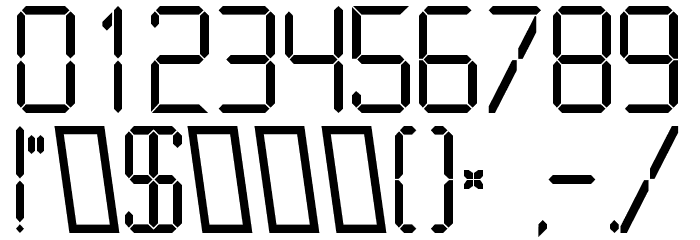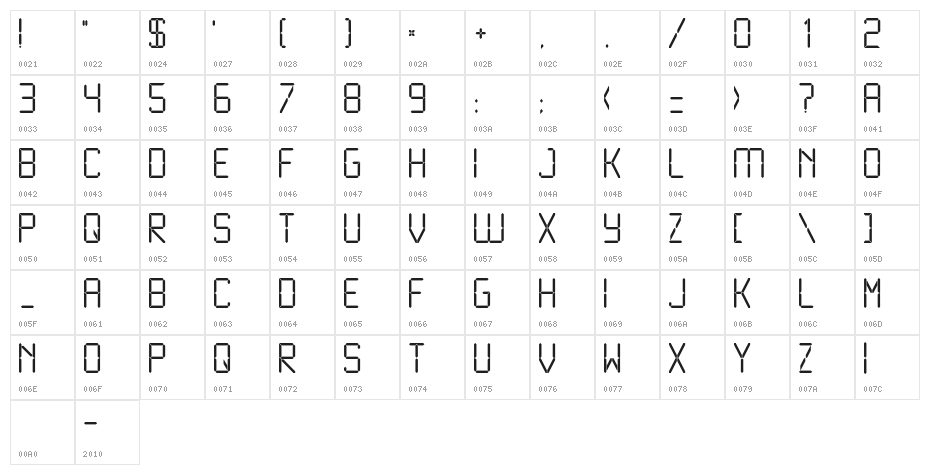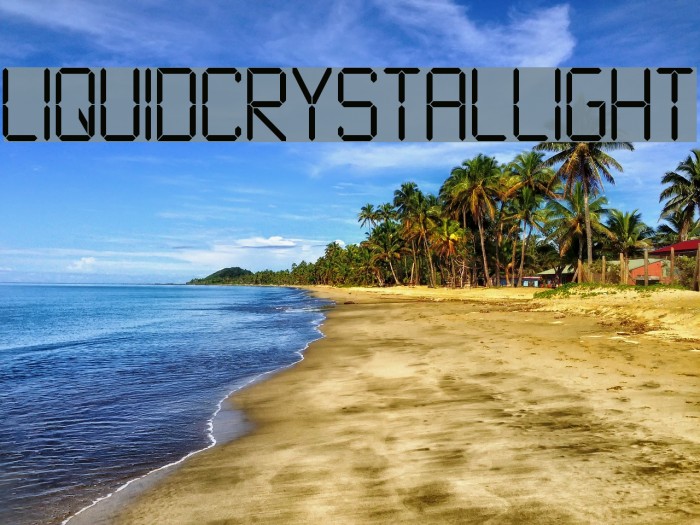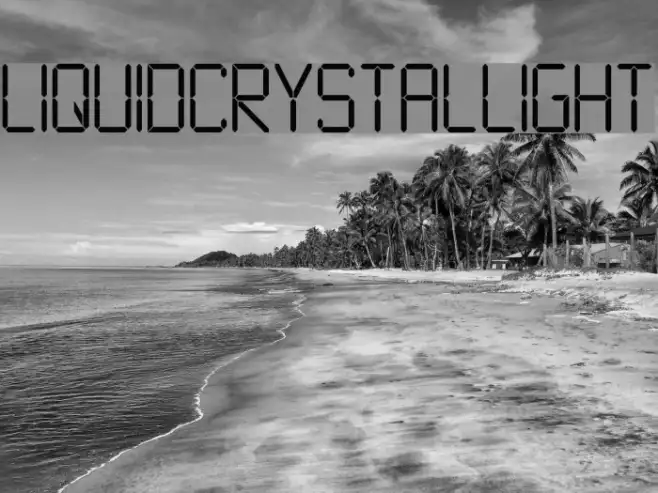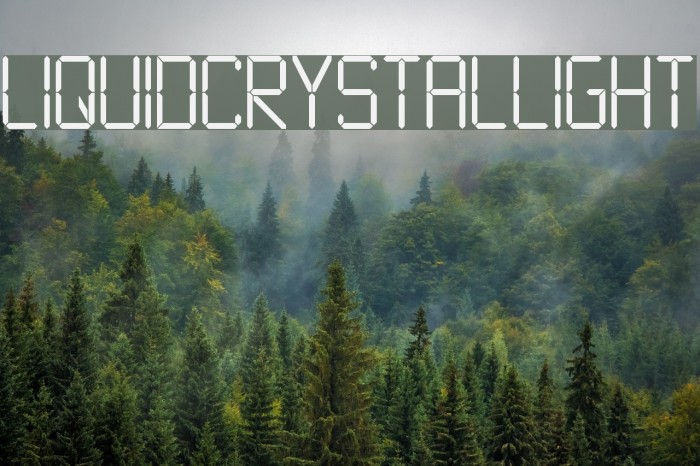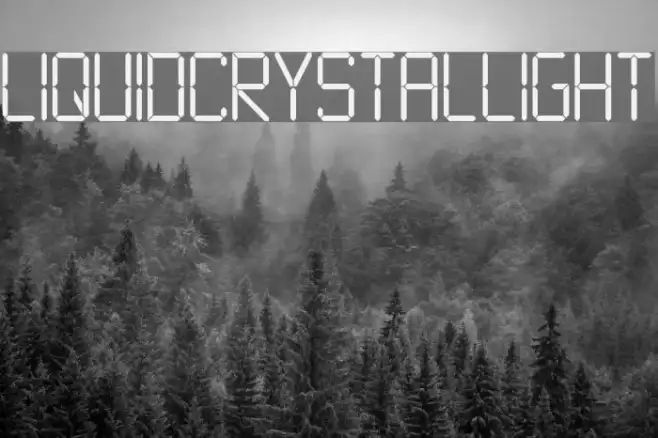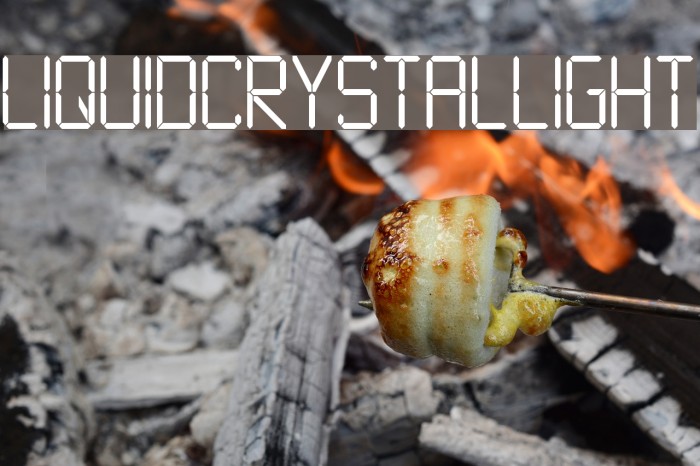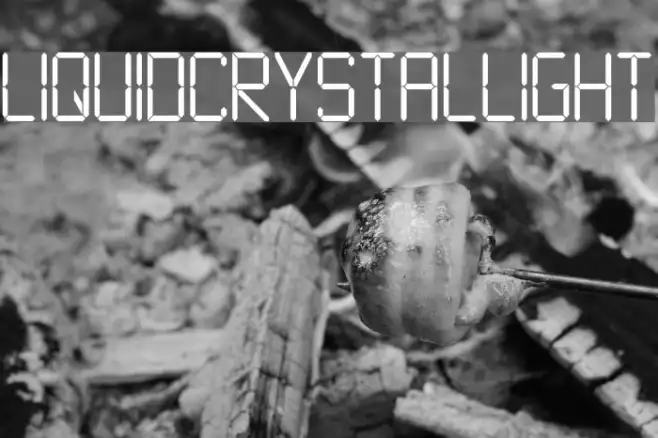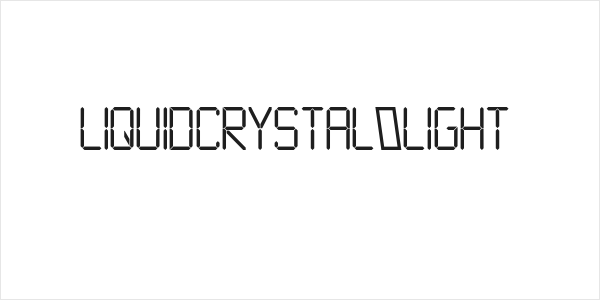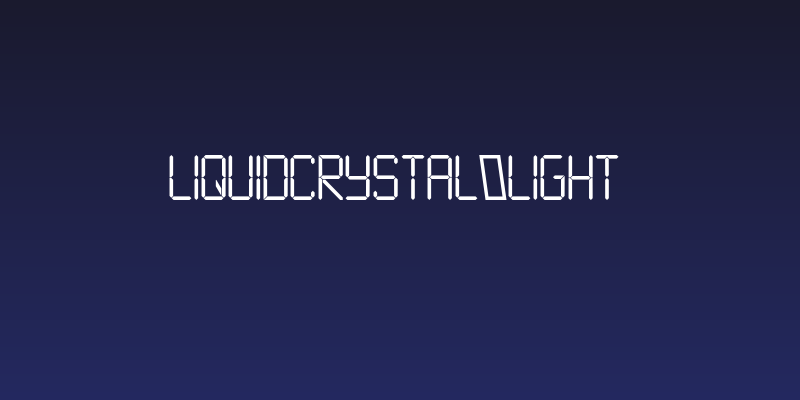
LiquidCrystal-Light Font
LiquidCrystal-Light Description
This font is inspired by digital displays, featuring a segmented style reminiscent of LCD screens. Each character is composed of straight lines and angles, creating a geometric and technical appearance. The uppercase and lowercase letters maintain a consistent height, enhancing readability and uniformity. Numbers and special characters follow the same segmented pattern, ensuring a cohesive look across all glyphs. The font's design is minimalistic yet striking, making it ideal for projects that require a modern, digital aesthetic.
| Use Case | Headlines, Logos, Digital displays |
| Proposed Projects | Ideal for digital interfaces, tech-themed designs, electronic device displays, and futuristic branding. |